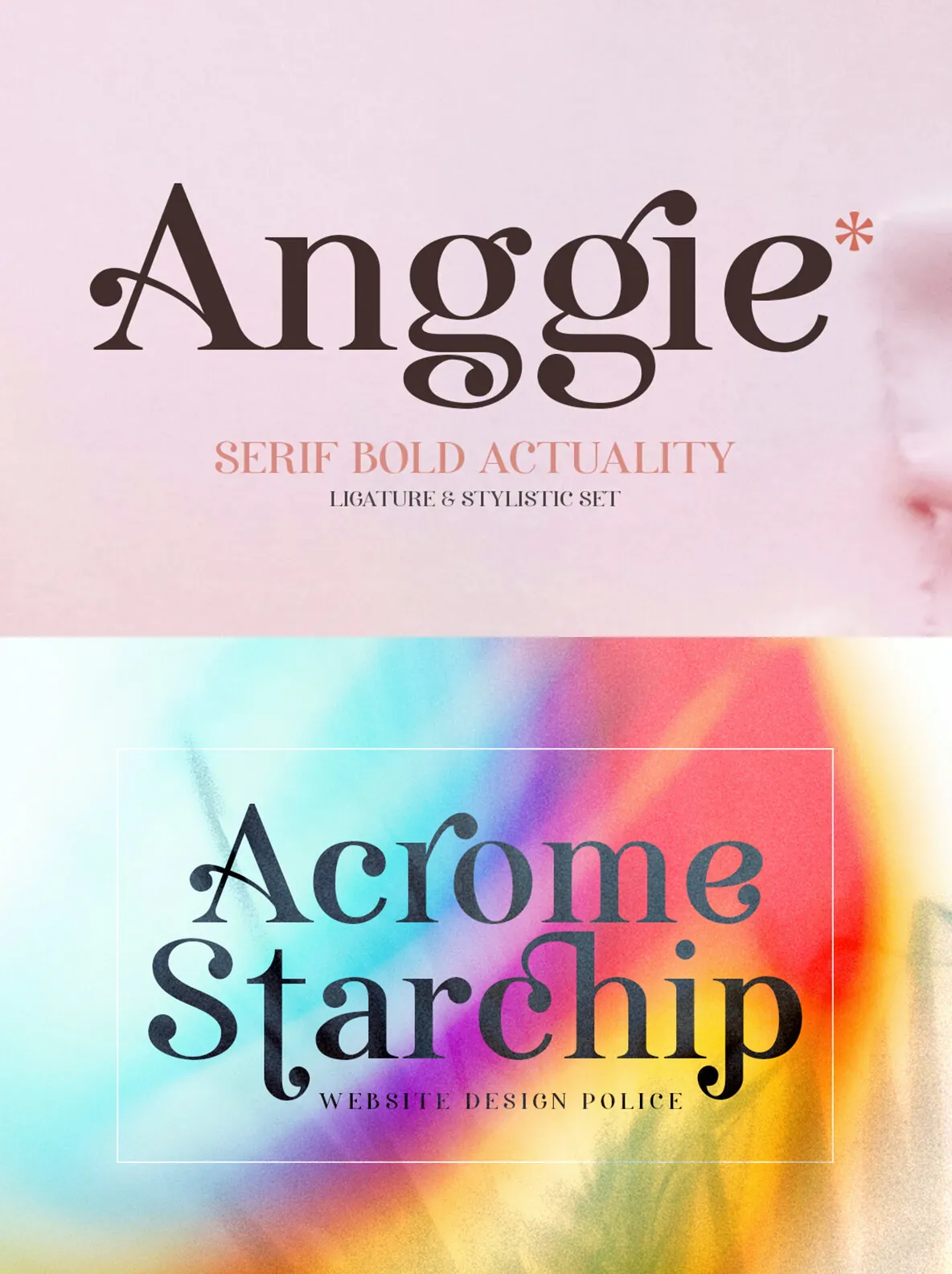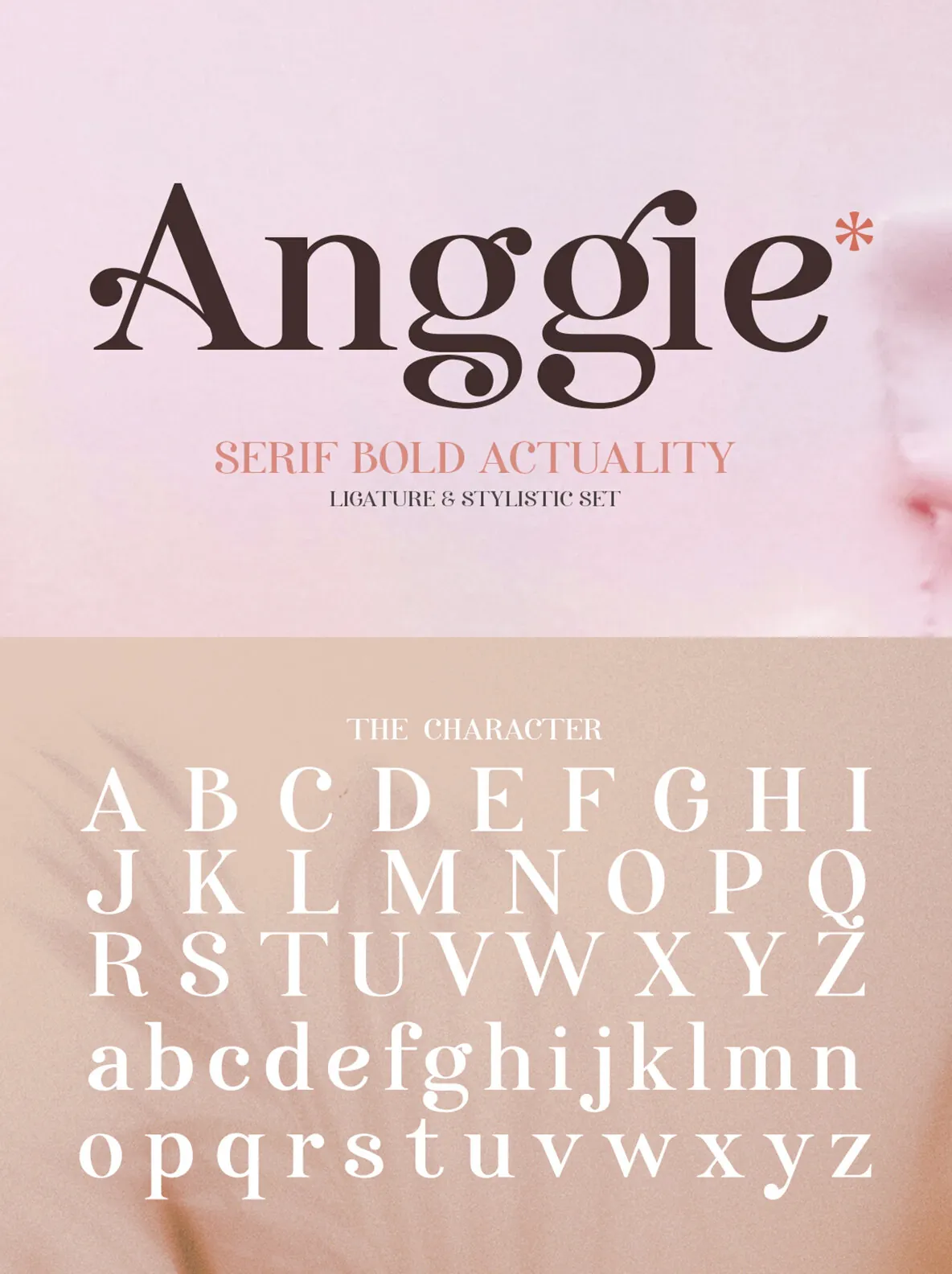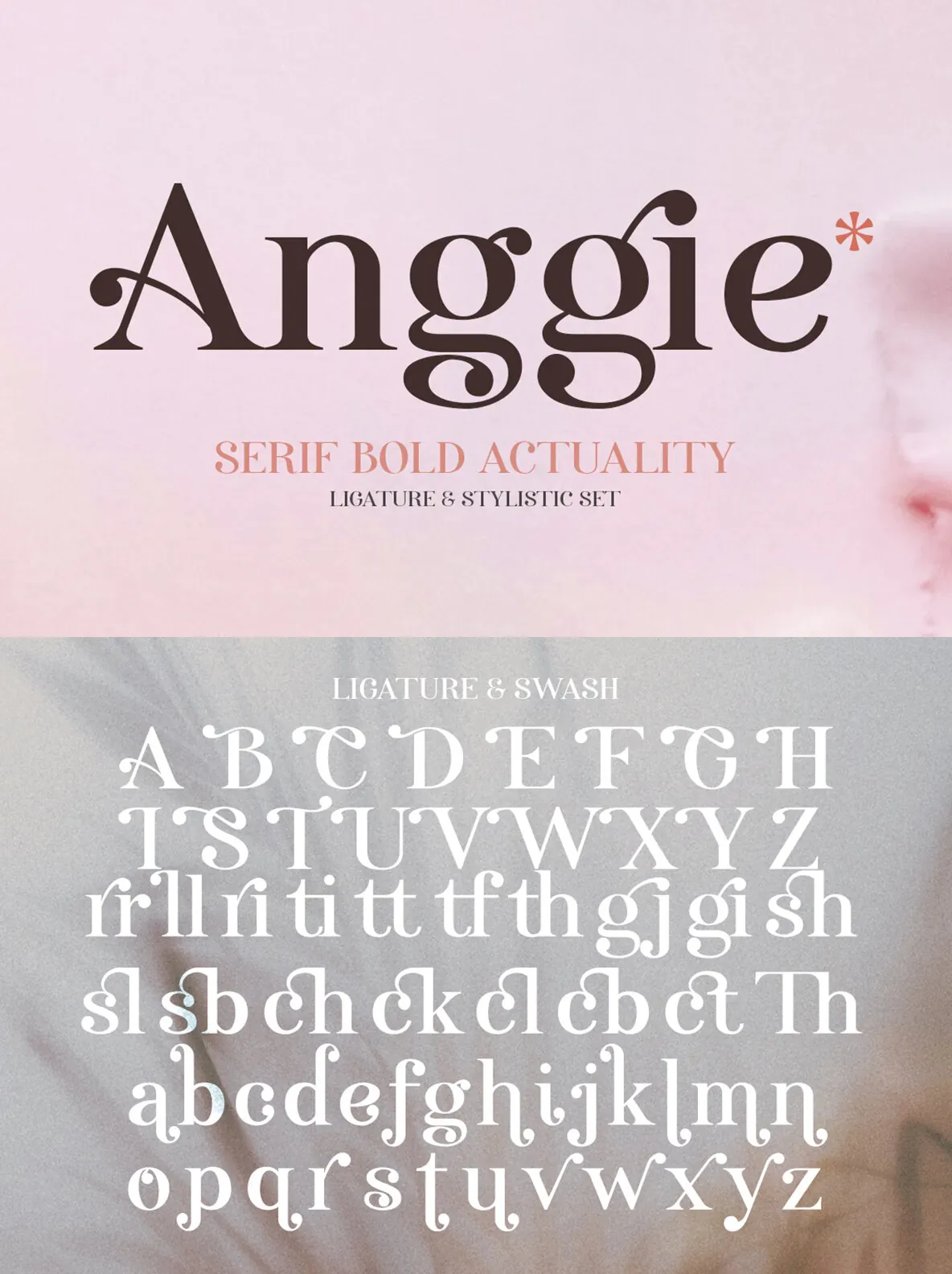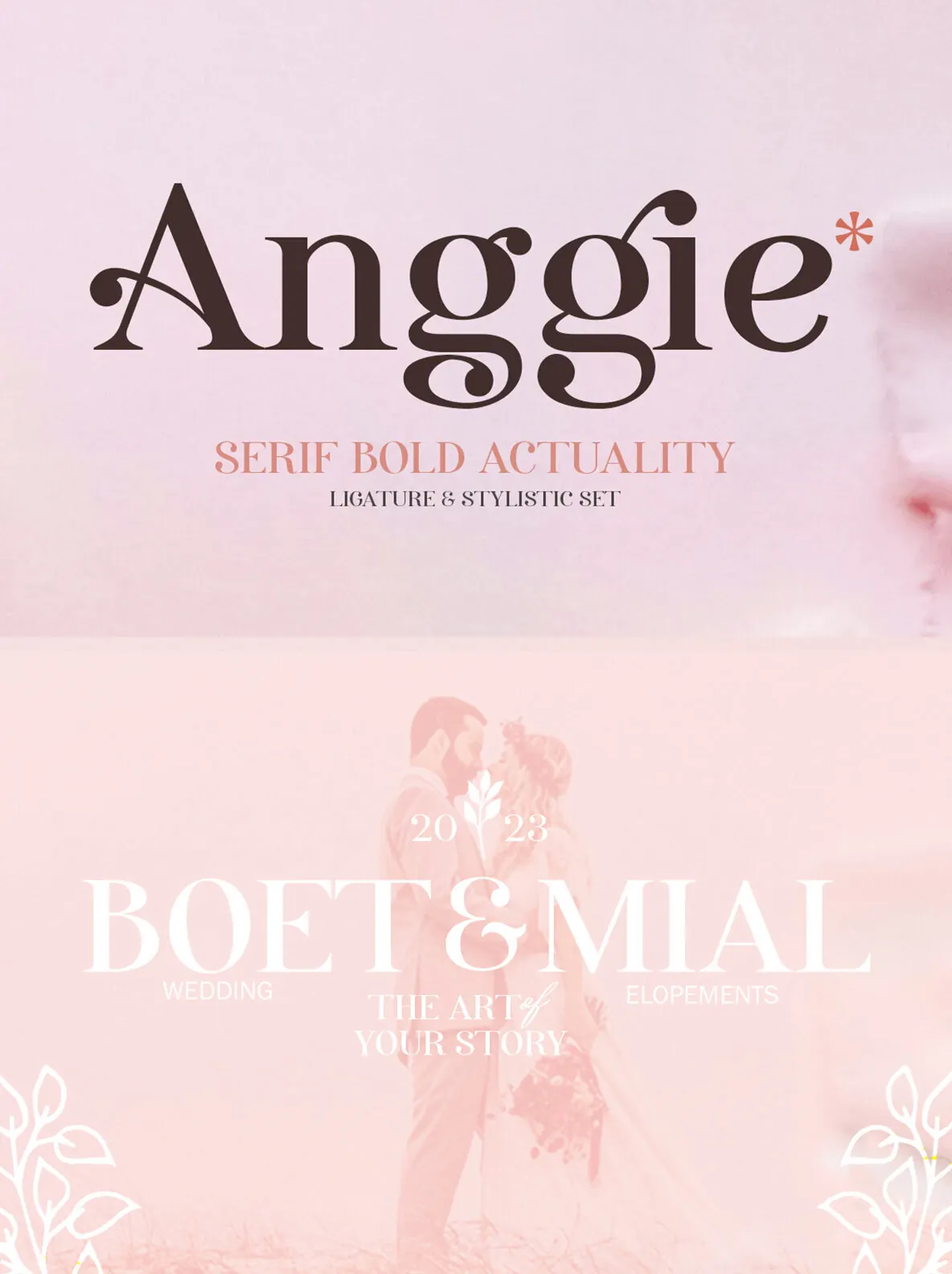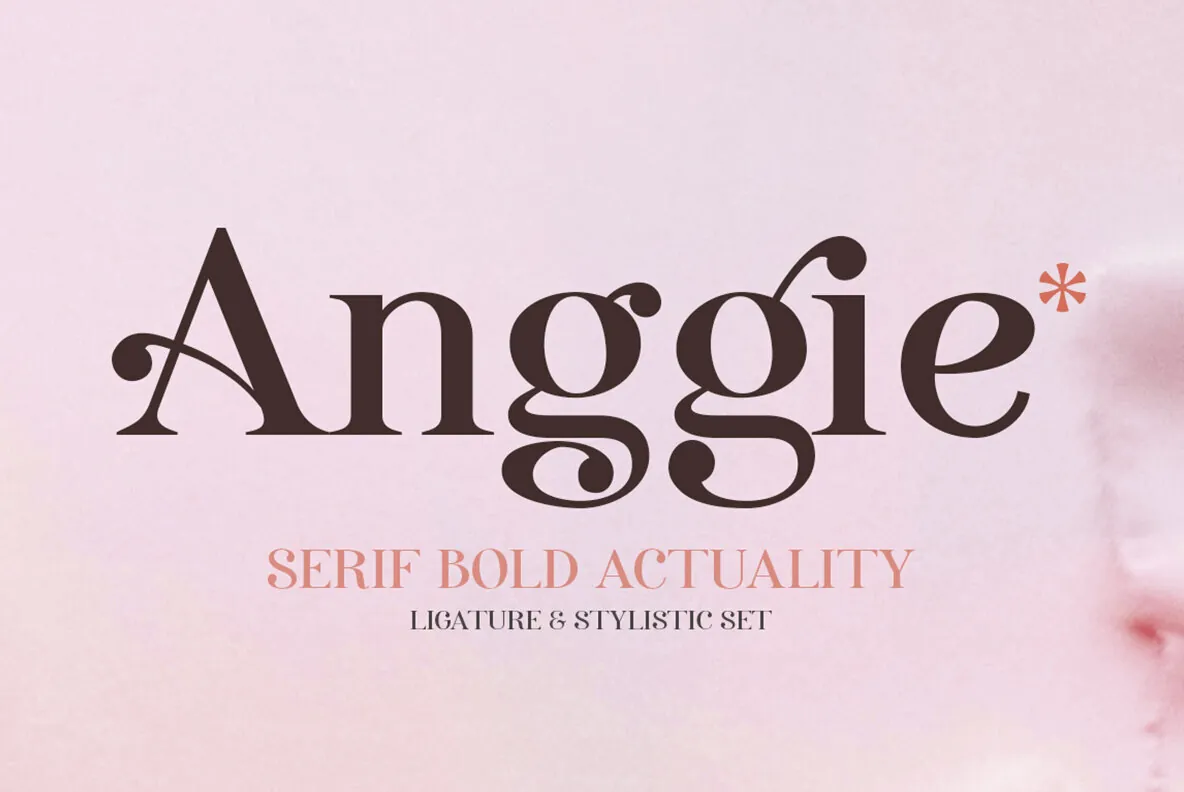
Anggie Display: Elegant Script for Luxurious Designs
Anggie Display is an elegant script infused with a creative flair, inspired by the refined aesthetics of contemporary serif displays. Its thick, balanced, and varied strokes make it an ideal choice for luxury and beauty-focused projects.
Versatile Applications
This script font is perfect for a variety of uses. Whether you’re working on logotypes, branding projects, wedding invitations, romantic cards, or alcohol labels, Anggie Display provides the sophistication you need. It is also ideal for packaging, name spelling, and more.
Beautiful Letterforms
– Includes uppercase and lowercase letters, numbers, and punctuation.
Alternate Characters
– Offers many alternative characters with early and late sweeps.
Multilingual Support
– Supports multiple languages for global appeal.
Ligatures and Swashes
– Adds unique flourishes and connections.
Stylistic Sets
– Provides diverse styling options.